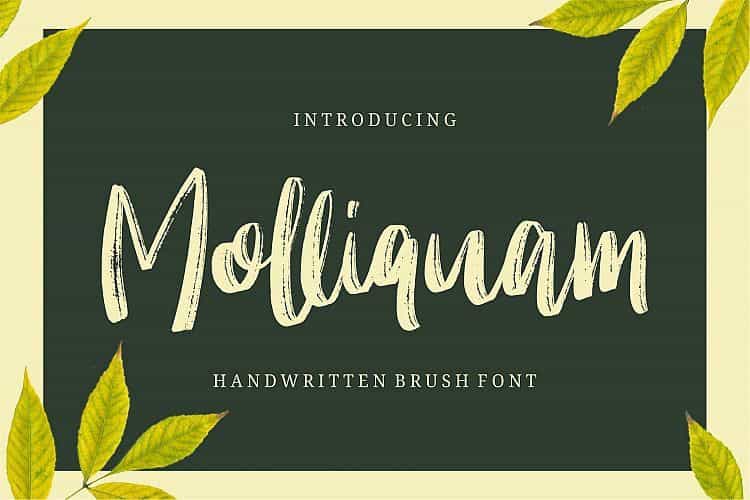
Molliquam Font is a contemporary brush font. Molliquam Brush Font begins with a brush stroke and has the script style as well as imitates the times. Molliquam is very suitable for the various media including; packaging, logo, label, poster design,. .. and so on.